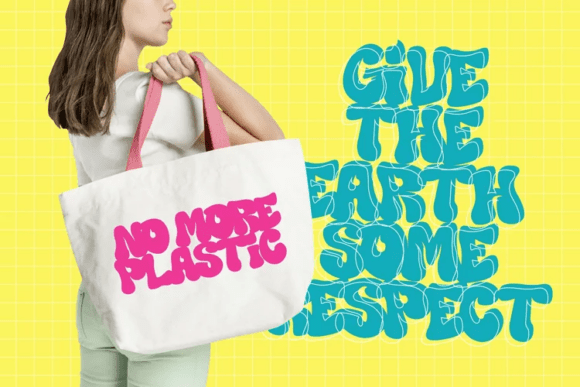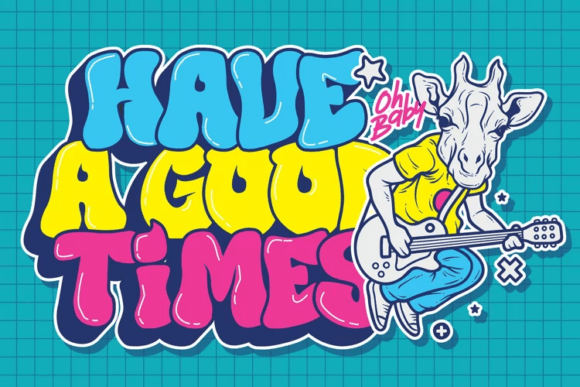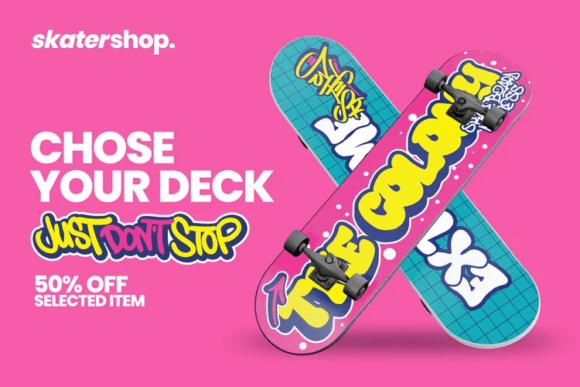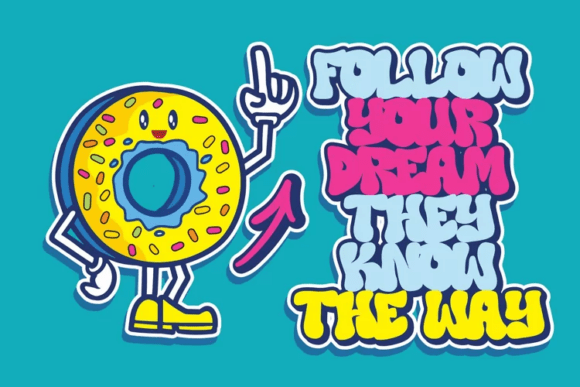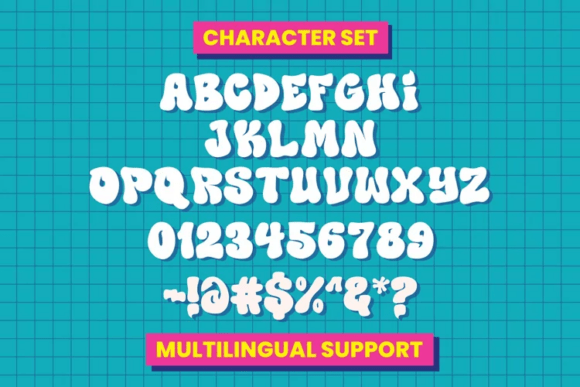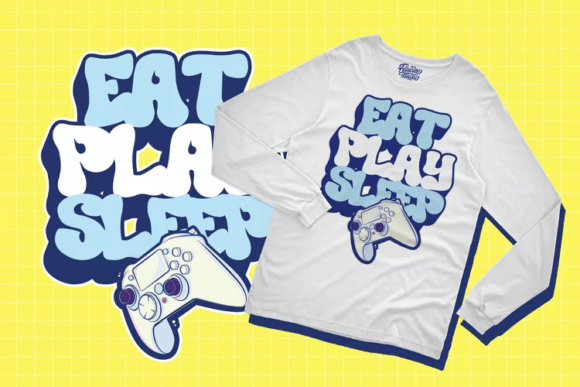
Introduction to Mock Bear Font
Mock Bear is a one-of-a-kind display graffiti font that brings a fresh and urban edge to your creative projects.
With its unique and bold design, this font exudes the spirit of street art, making it perfect for eye-catching headlines, posters, and artistic displays Each character features intricate details and a playful, edgy style, capturing the essence of contemporary graffiti art.
Key Features of Mock Bear Font
Why Choose Mock Bear Font?